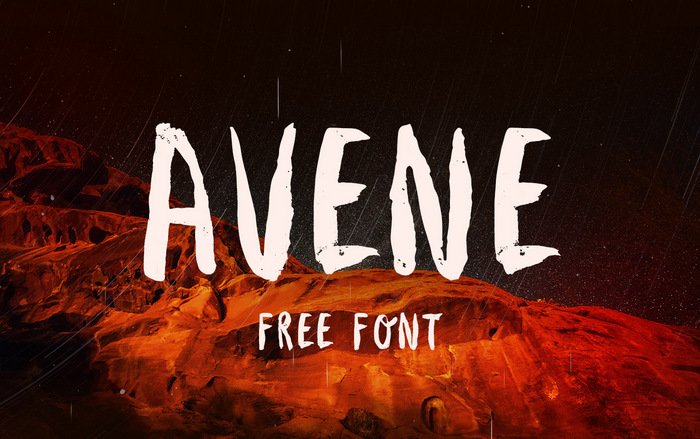
Avene Brush Font
A new font Brush, and completely free. It’s good if you add it to your collection of fonts. Introducing Avene Brush Font! Avene designed and shared by KRISIJANIS MEZULIS. Avene is a brush font made by hand with a thick brush.If you need a unique visual appeal, look no further. It features 94 characters and has all the basic glyphs. The download contains a .otf file and .woff.